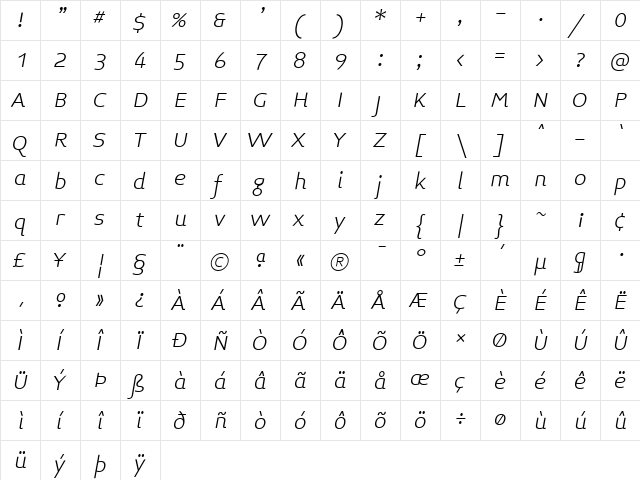
Midiet Sans Italic Light
| Foundry | YOFonts |
| Designer | Yamaoka Yasuhiro |
Design Context for Midiet Typeface
Midiet is a composed and adaptable typeface that performs quietly and consistently across a wide range of design contexts. The slanted form adds forward momentum and visual energy. The delicate stroke weight brings airiness and refinement to layouts.
Pro Tip: Use Midiet for emphasis, pull quotes, and subheadings where its slanted energy can add rhythm to the layout.